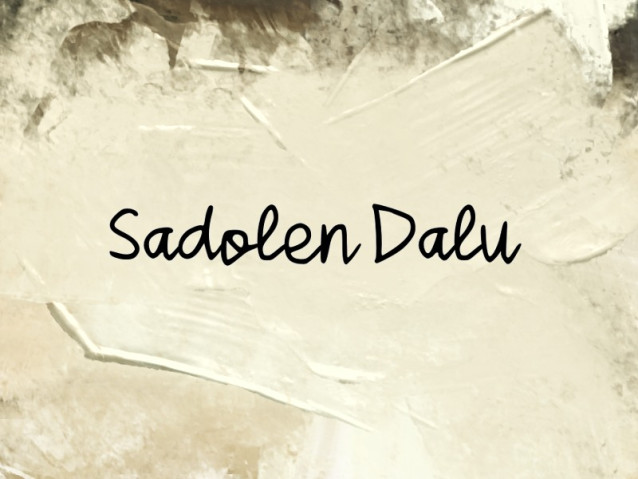
Sadolen Dalu Font
Sadolen Dalu Font is a simple and modern Handwritten font suitable for quotes, logos, headings, titles, and many more. Use it on any of your creative projects, and your designs will become outstanding!